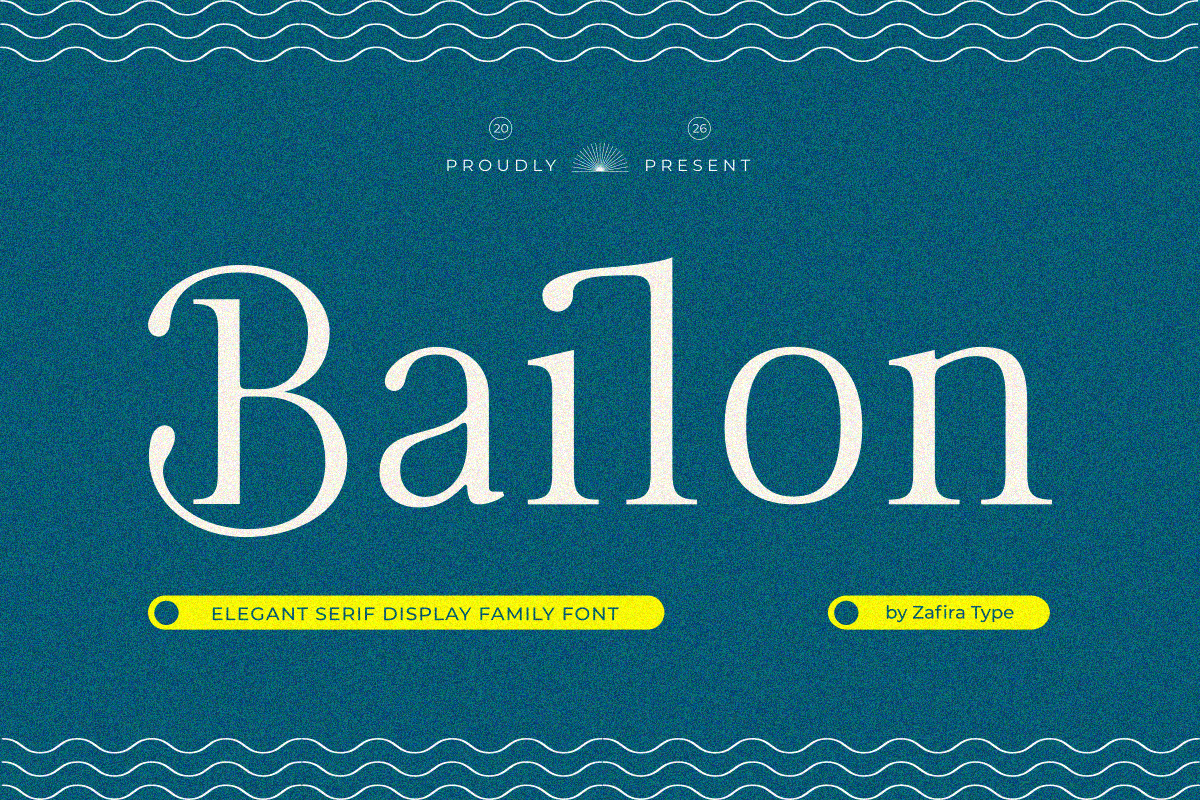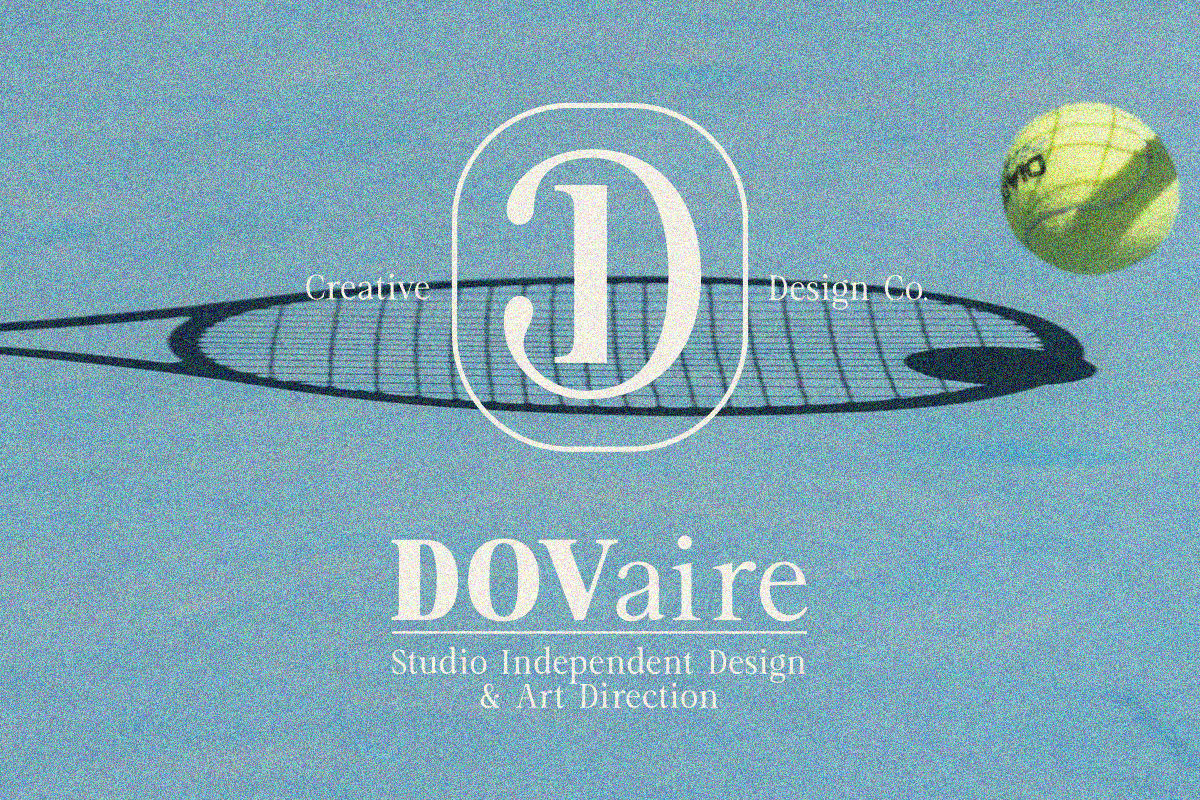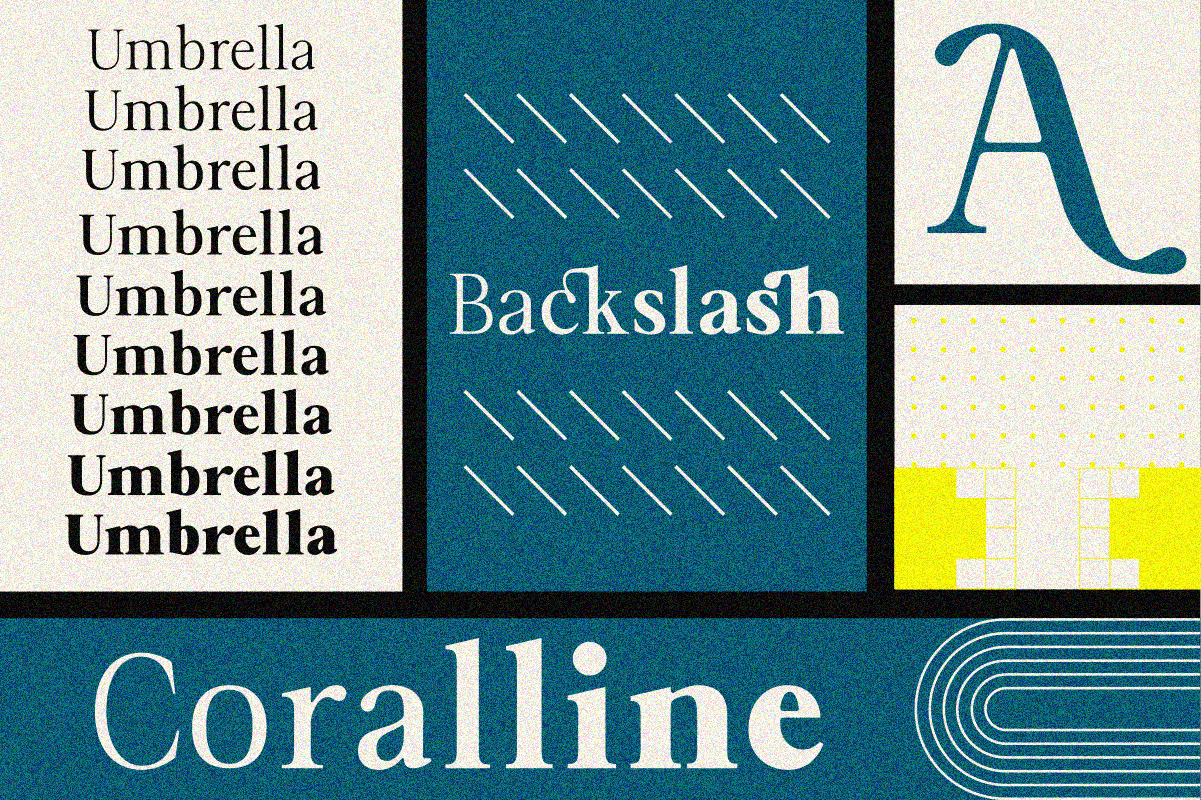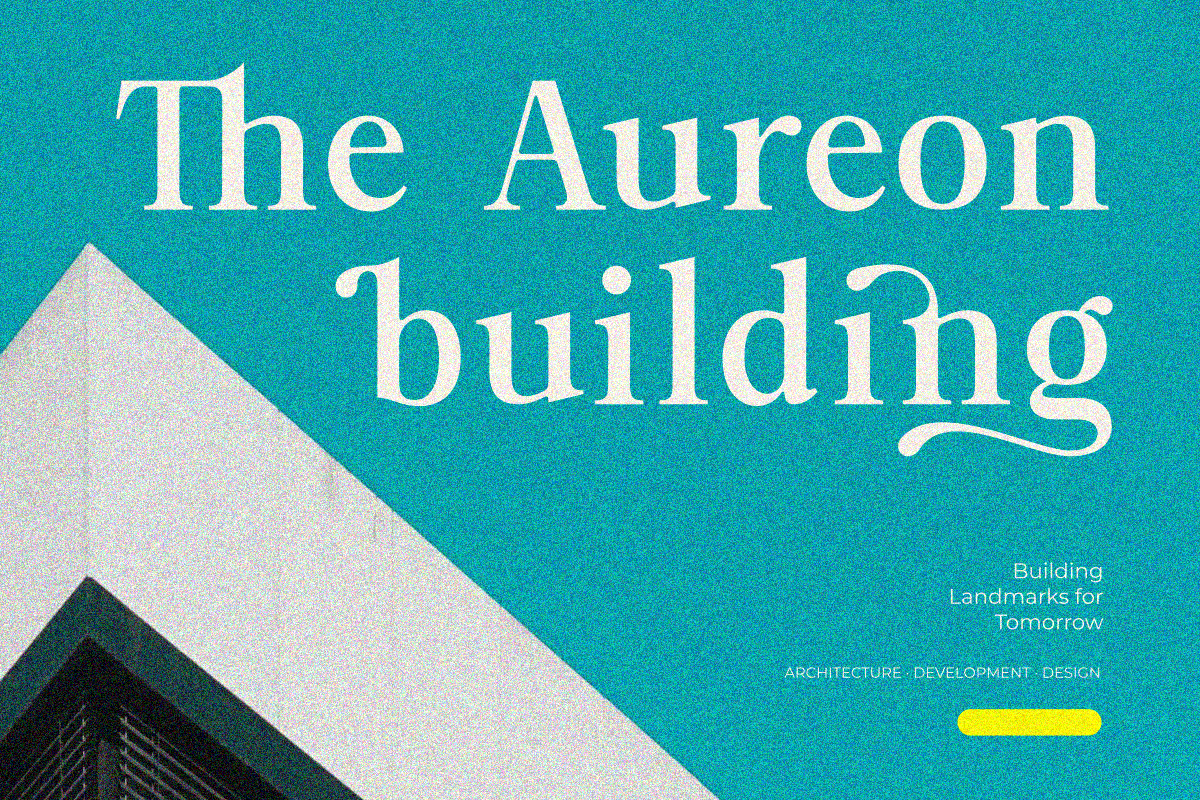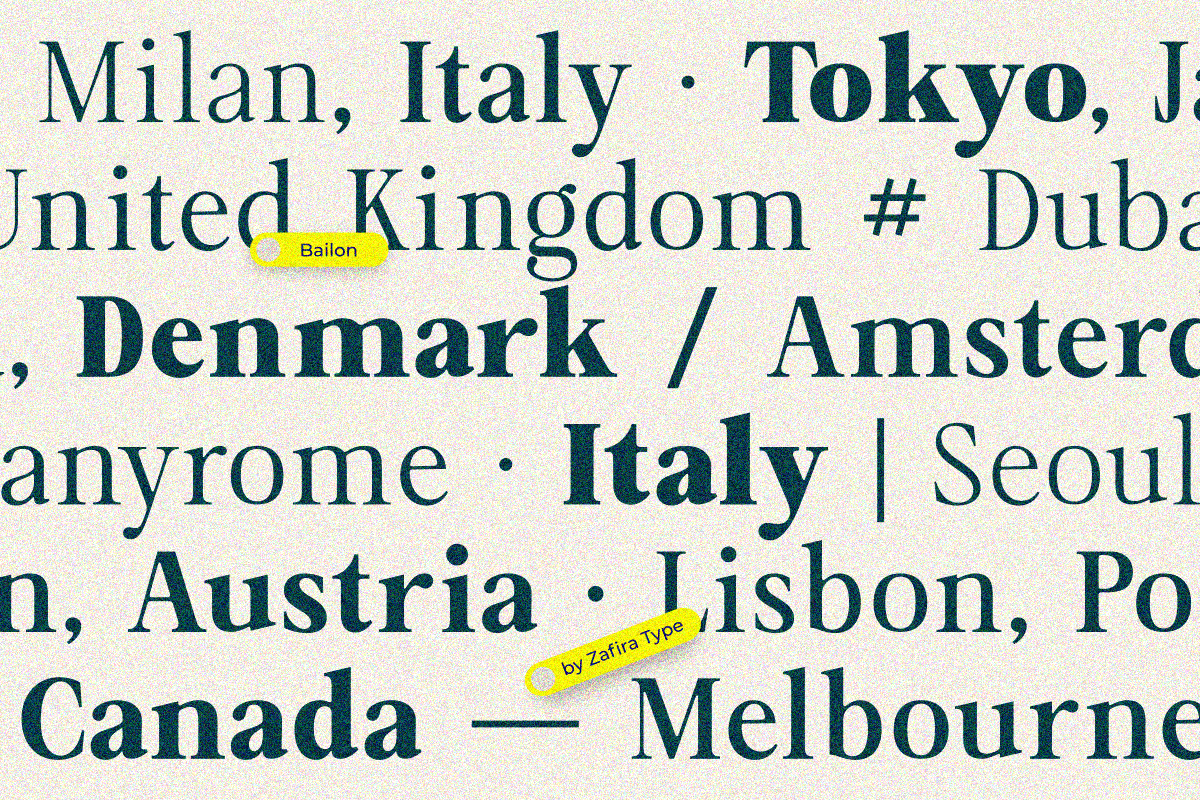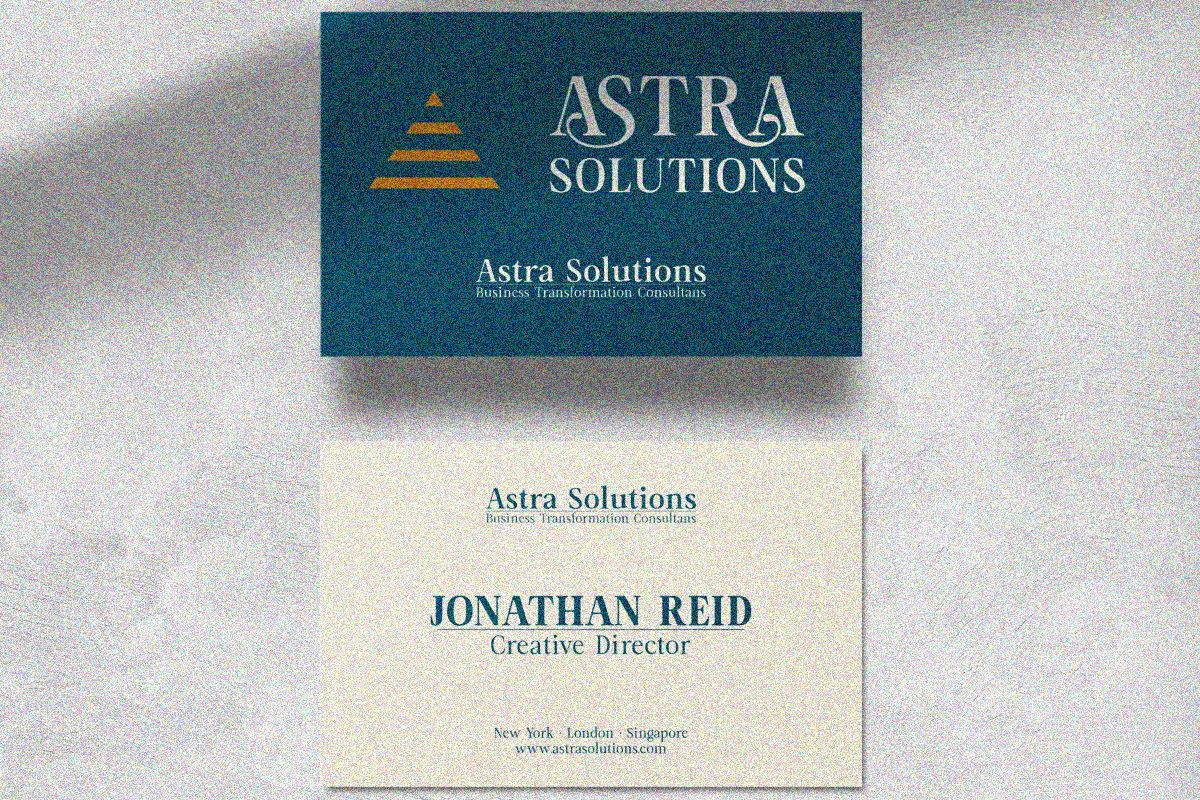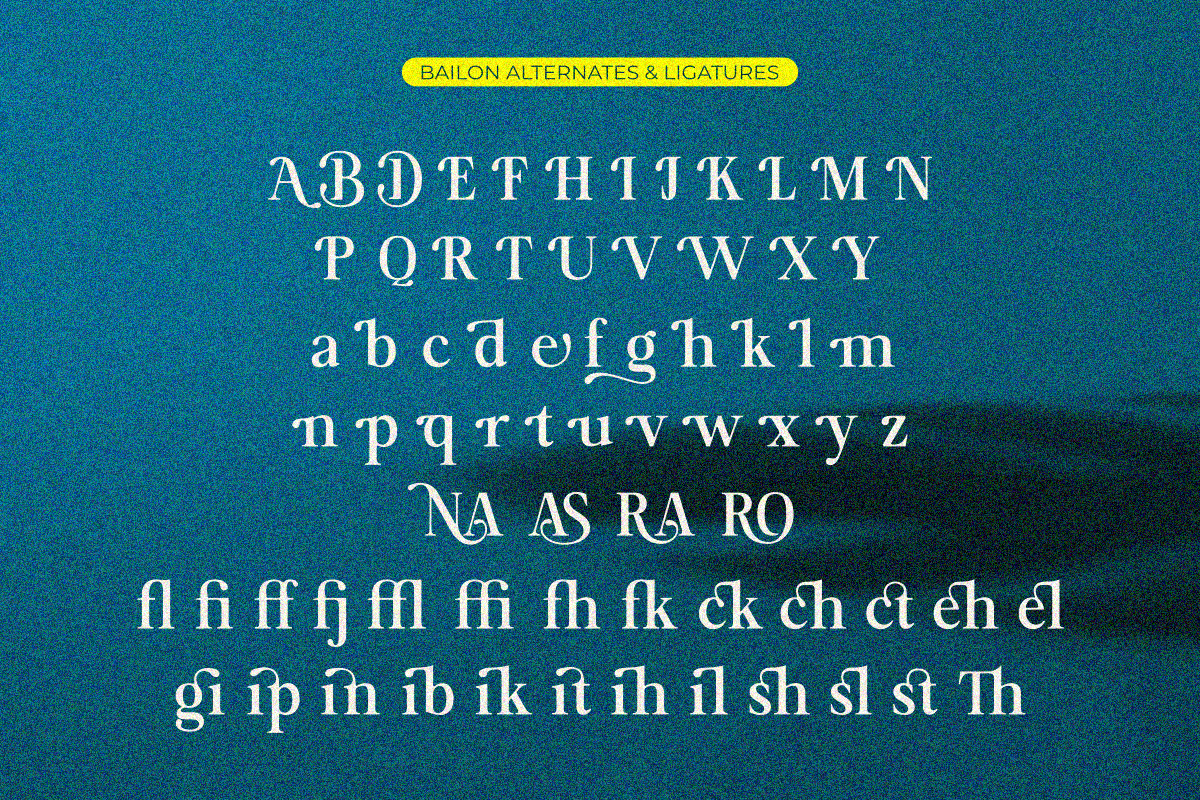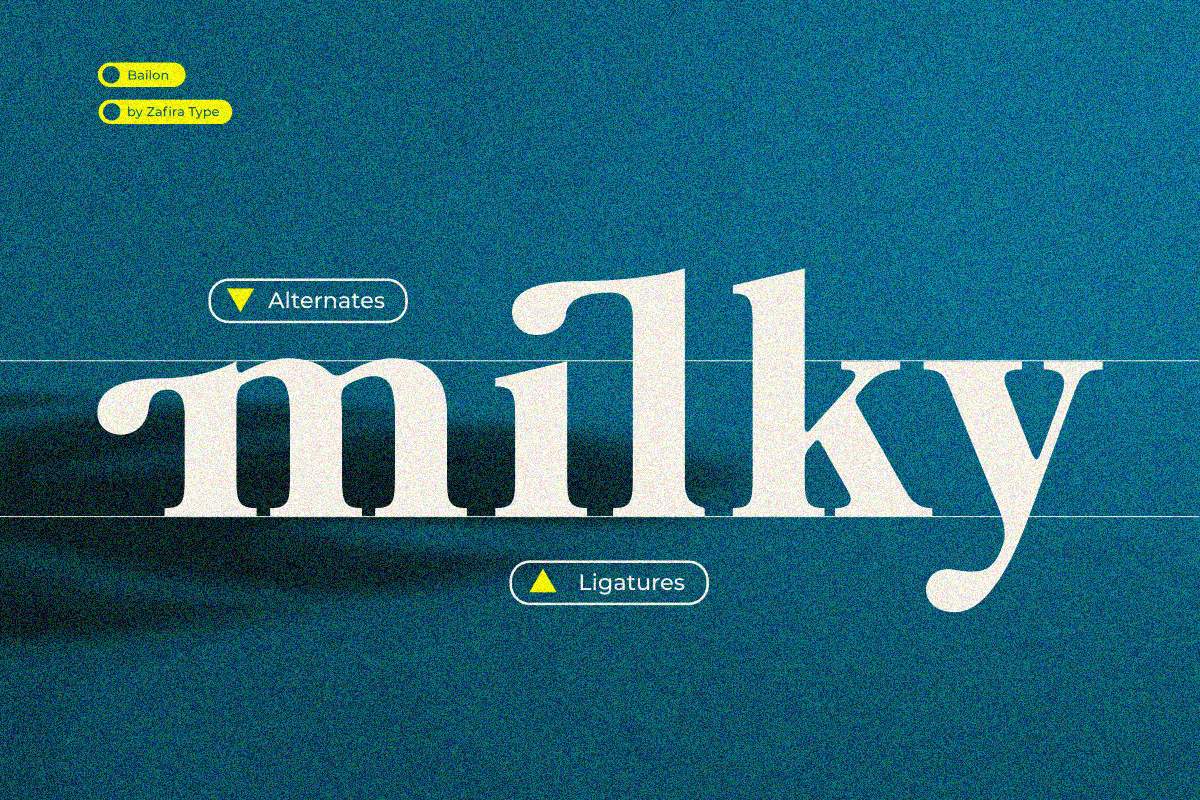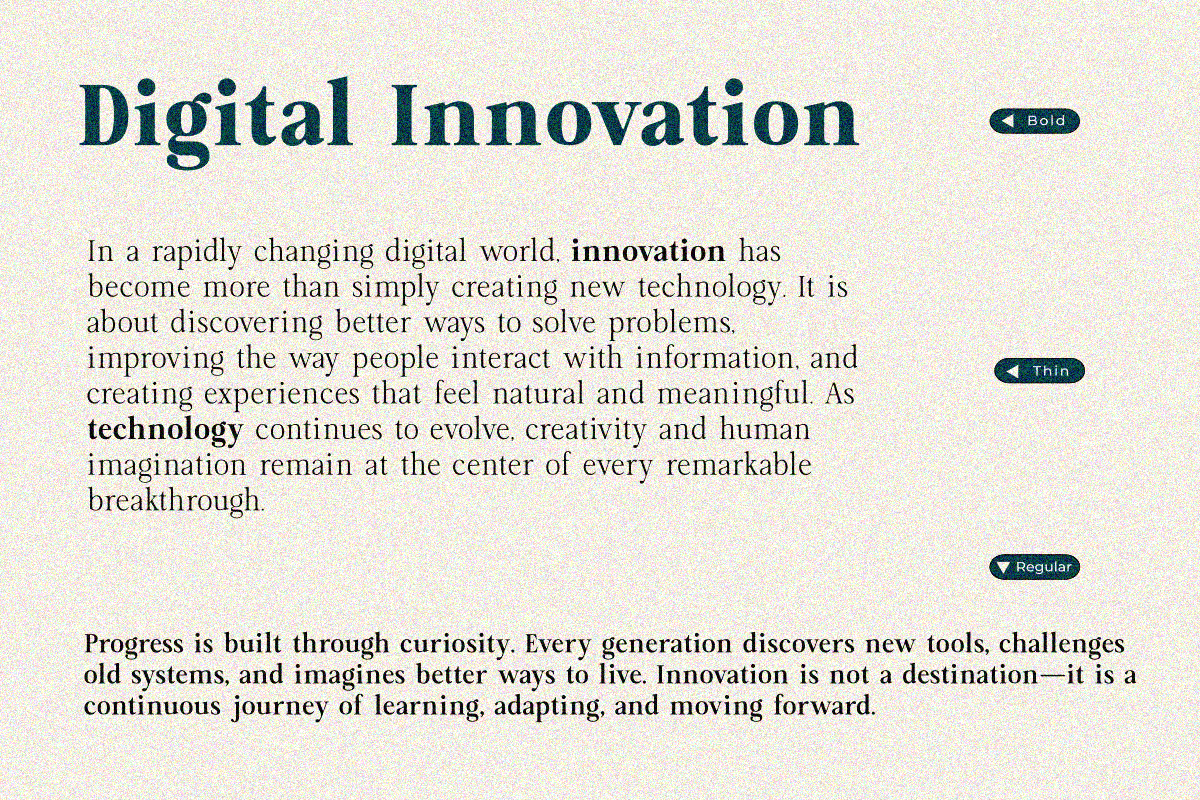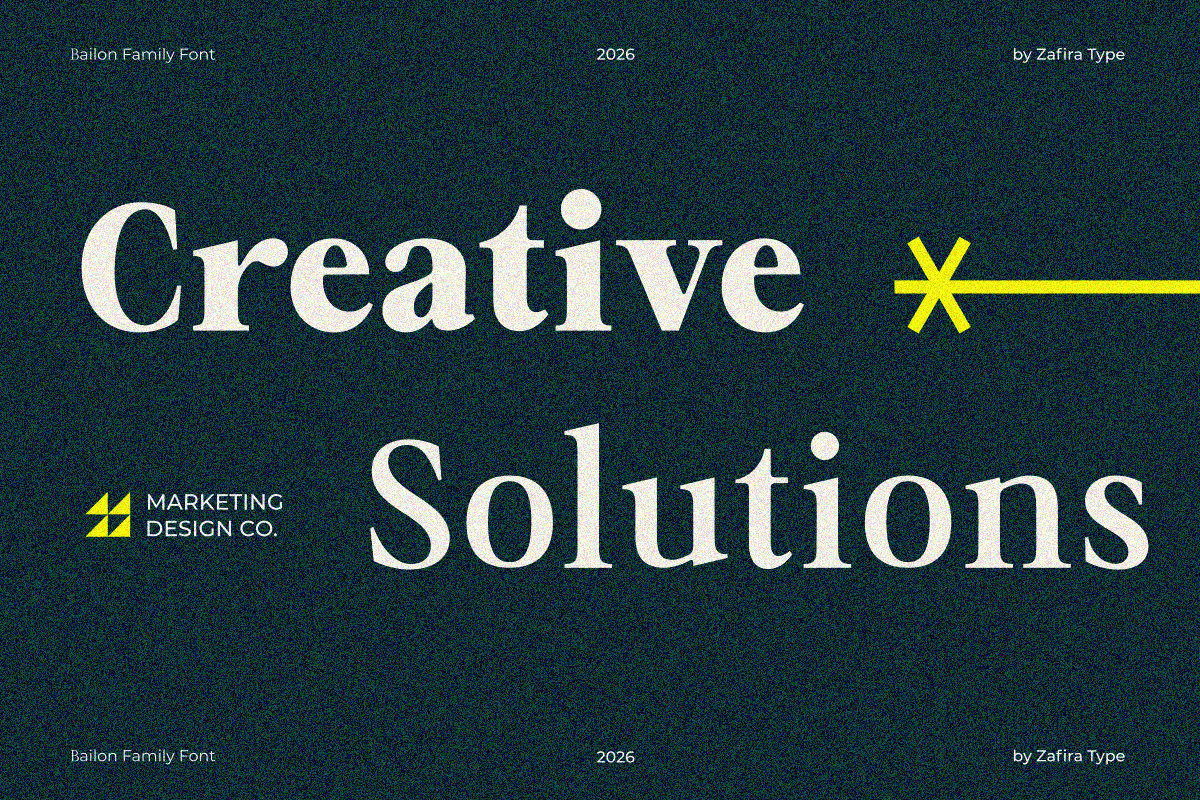
Bailon is a modern serif font family designed to bring an elegant, bold, and professional touch to any design project. Balancing classic aesthetic appeal with contemporary refinement, Bailon offers exceptional flexibility across both print and digital media.
Featuring 9 weights — ranging from delicate Thin to impactful Black — Bailon gives you complete typographic freedom to craft structured, consistent, and visually striking hierarchies.
9 Weights: Thin, ExtraLight, Light, Regular, Medium, SemiBold, Bold, ExtraBold, & Black.
Contemporary Serif: Sharp, refined serifs engineered for high legibility and strong contrast.
OpenType Features: Includes custom ligatures and stylistic alternates for dynamic layouts.
Bailon